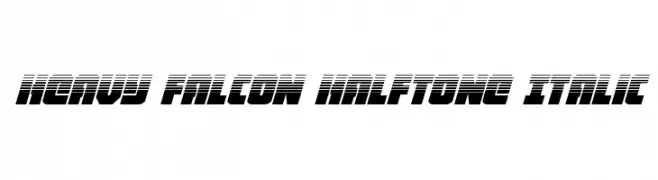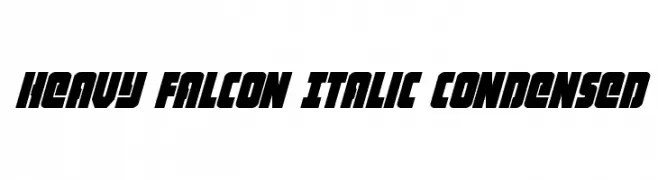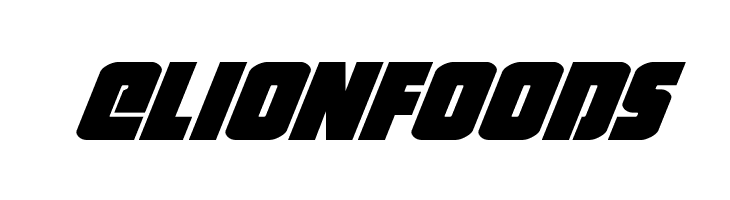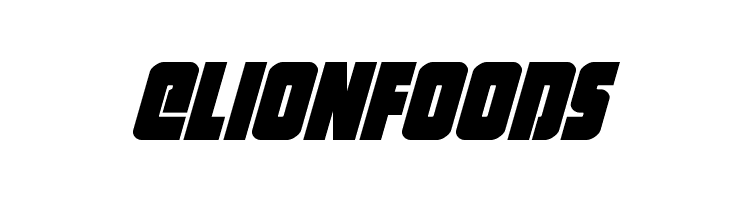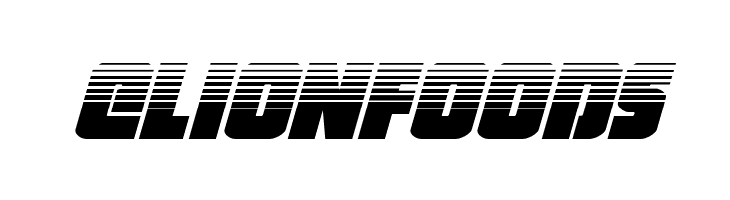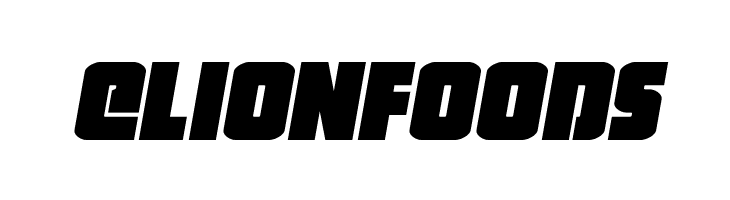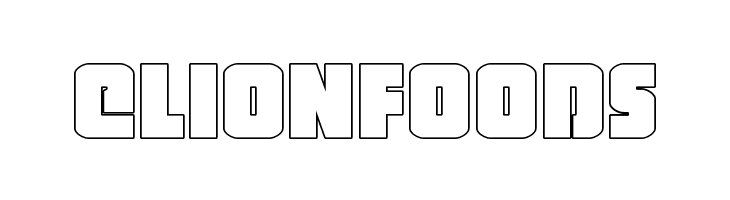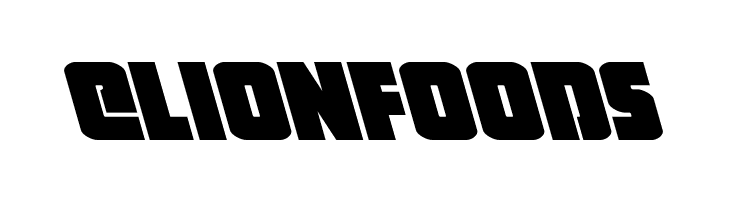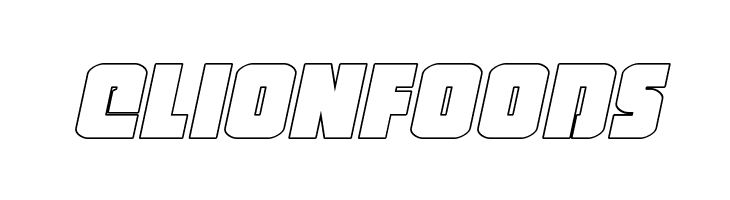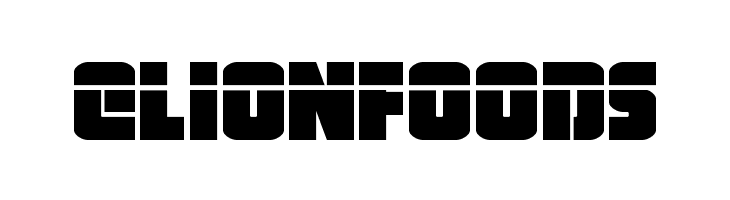
• Heavy Falcon Halftone Italic
A bold, italicized font with a halftone effect, perfect for modern and dynamic designs.
• Heavy Falcon Italic
A bold, italic font with a dynamic and energetic style.
• Heavy Falcon Italic Condensed
A bold, italic, and condensed font with high contrast and a dynamic style.
• Heavy Falcon Laser
A bold, geometric font with a futuristic and modern aesthetic.
• Heavy Falcon Laser Italic
A bold, futuristic italic font with angular shapes and tight spacing.
• Heavy Falcon Leftalic
A bold, geometric font with a slanted, dynamic style.
• Heavy Falcon Outline
A bold, geometric outline font with a modern, impactful style.
• Heavy Falcon Outline Italic
Bold, italicized outline font with a modern and dynamic style.
• Heavy Falcon Semi-Italic
A bold, semi-italic font with a modern and dynamic style.
• Heavy Falcon Super-Italic
A bold, italic font with a dynamic and modern style.